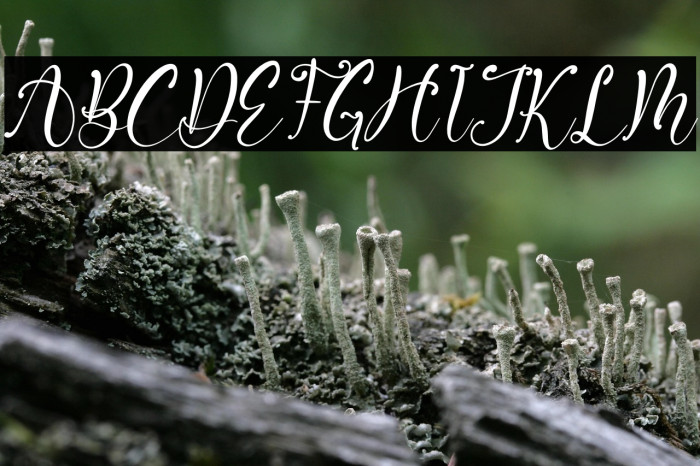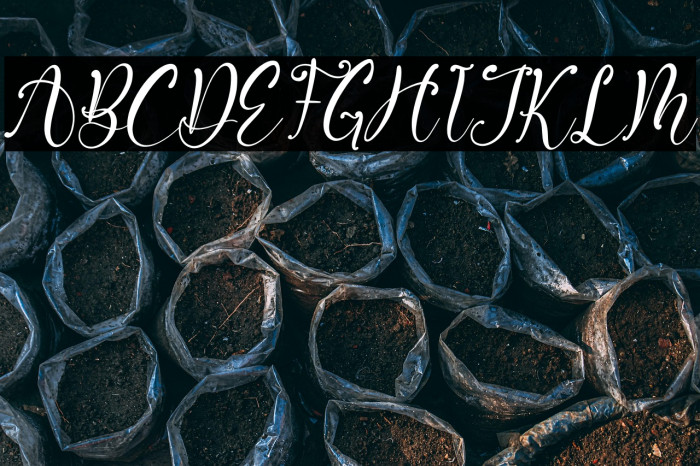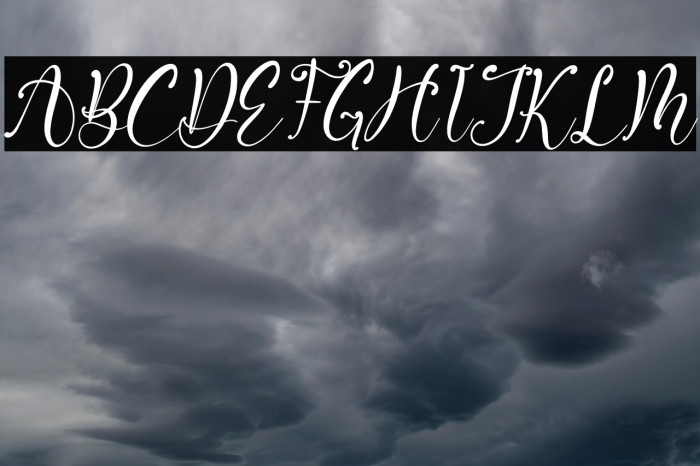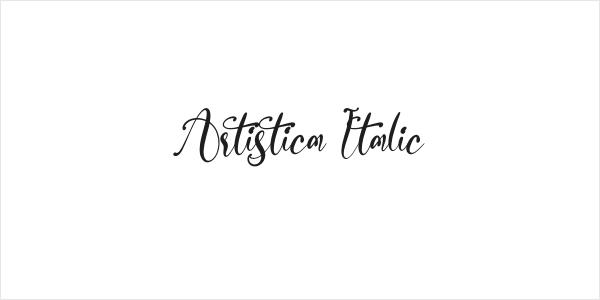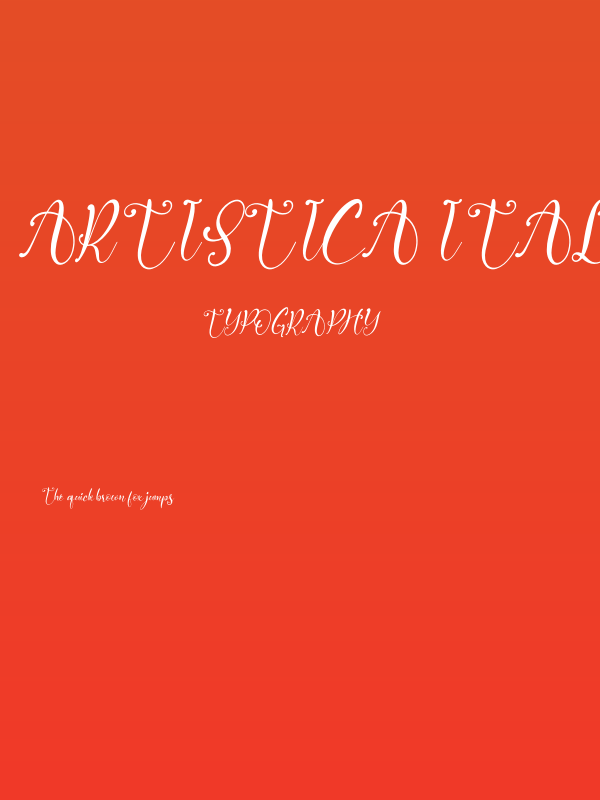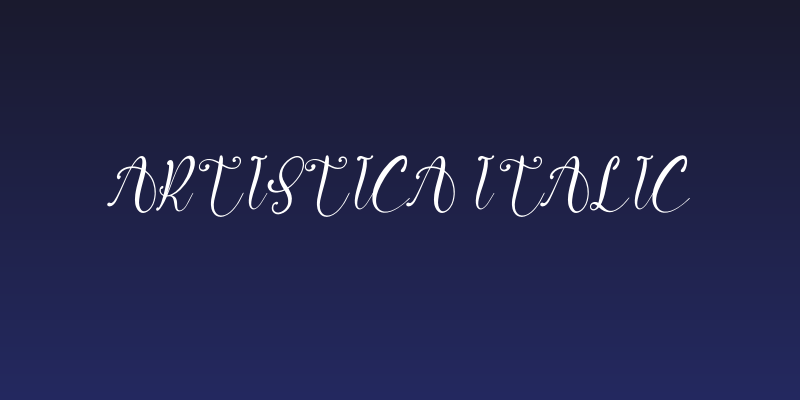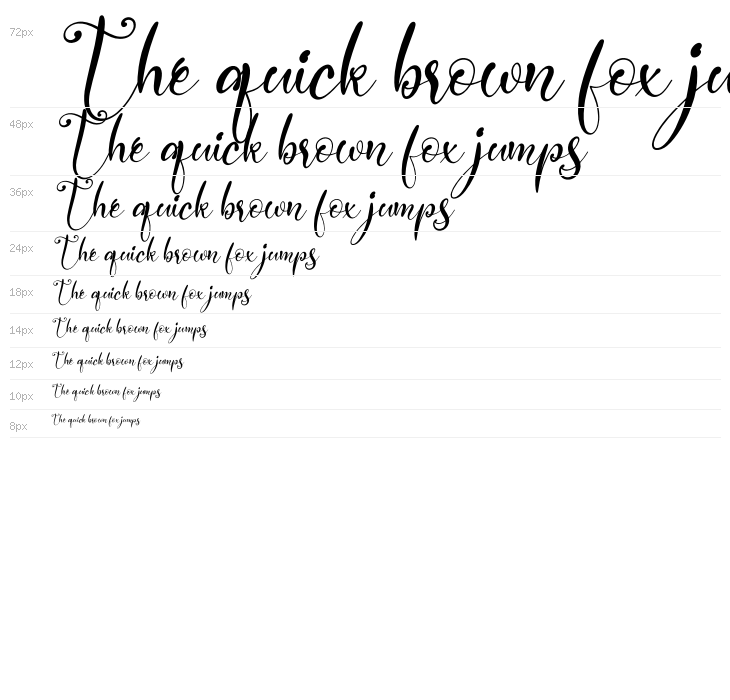
Artistica Italic Font
Artistica Italic Description
This font exudes elegance and sophistication with its flowing, cursive style. The letters are intricately designed with graceful curves and loops, giving it a handwritten appearance. The uppercase letters are particularly ornate, featuring elaborate swirls and flourishes that add a touch of drama. The lowercase letters maintain a consistent style, with smooth connections between characters that enhance readability. The numerals are equally stylish, matching the overall aesthetic with their fluid lines. Special characters are thoughtfully crafted, maintaining the decorative theme. This font is perfect for projects that require a personal, artistic touch.